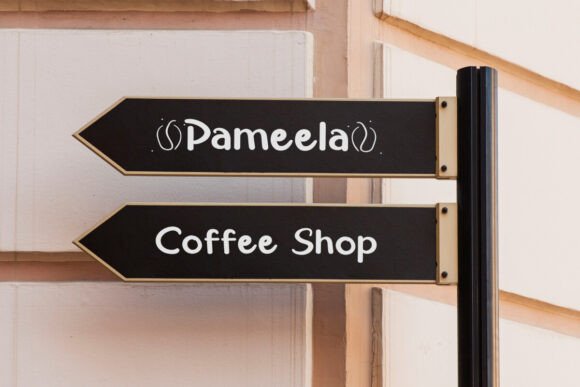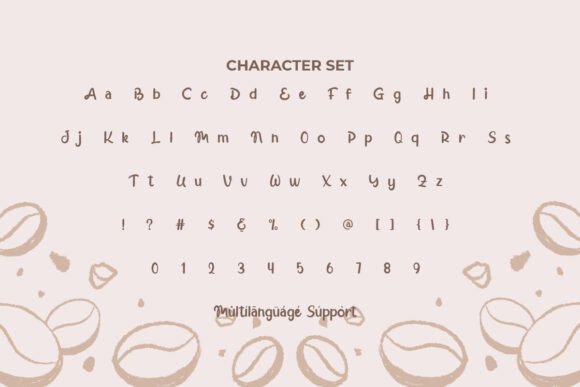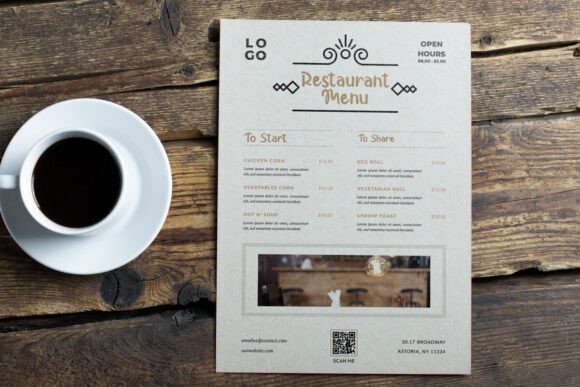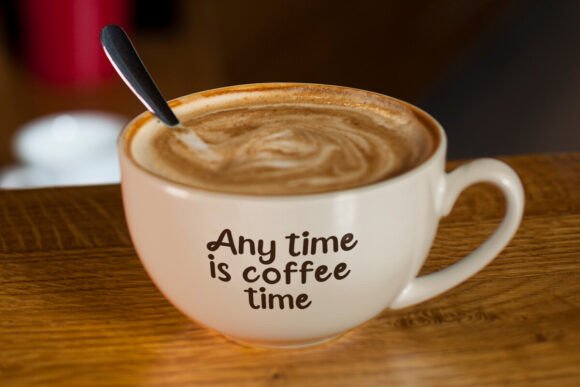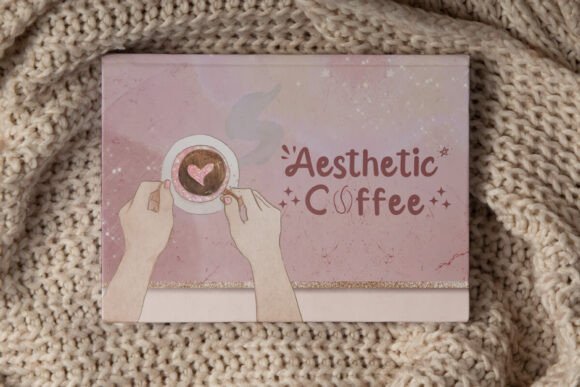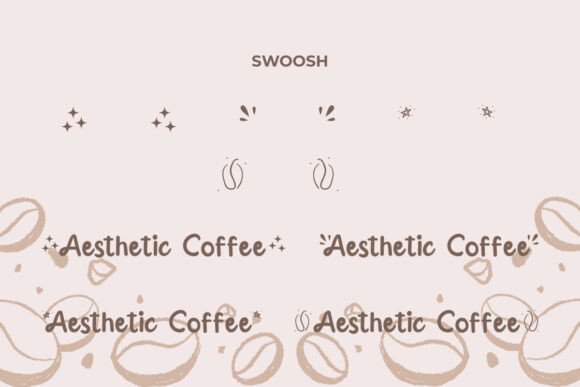
Aesthetic Coffee Font: The Perfect Blend of Style and Flavor
Are you a designer, crafty enthusiast, or coffee lover looking for a unique and eye-catching font to elevate your creative projects? Look no further than the Aesthetic Coffee Font, a playful decorative display font that captures the essence of delicious coffee. Inspired by the art of beautiful coffee decorations, this font is sure to perk up your designs and leave a lasting impression.
The Inspiration Behind Aesthetic Coffee Font
The Aesthetic Coffee Font is a labor of love, crafted with passion and attention to detail to reflect the beauty of coffee culture. From the swirling patterns of steamed milk to the delicate designs on a perfectly crafted cup of coffee, this font embodies the creativity and flair of the coffee world. Whether you’re a coffee connoisseur or simply a fan of the beverage, this font is sure to delight.
Design Features of Aesthetic Coffee Font
Aesthetic Coffee Font boasts a range of design features that make it perfect for a variety of creative projects. Some of its key characteristics include:
- Playful and decorative: With its whimsical and artistic flair, this font adds a touch of personality to any design.
- Display font: Aesthetic Coffee Font is designed to make a statement, making it ideal for headlines, titles, and promotional materials.
- Inspired by coffee culture: From coffee cups to saucers, this font captures the essence of the coffee experience.
In conclusion, Aesthetic Coffee Font is a one-of-a-kind decorative display font that’s sure to delight designers, crafters, and coffee lovers alike. With its playful and artistic flair, this font is perfect for adding a touch of personality to your creative projects. Whether you’re looking to elevate your branding, create eye-catching promotions, or simply add a dash of creativity to your designs, Aesthetic Coffee Font is the perfect choice.